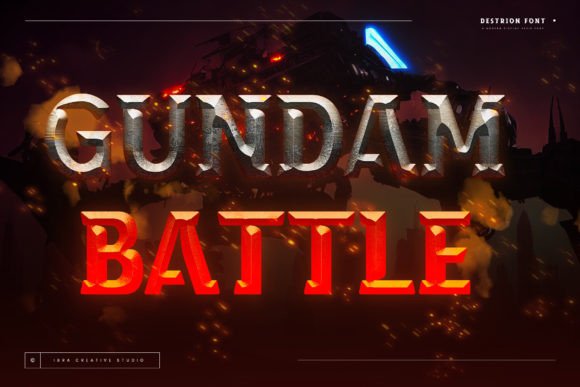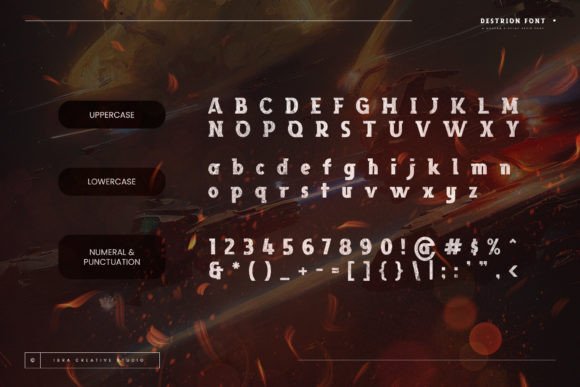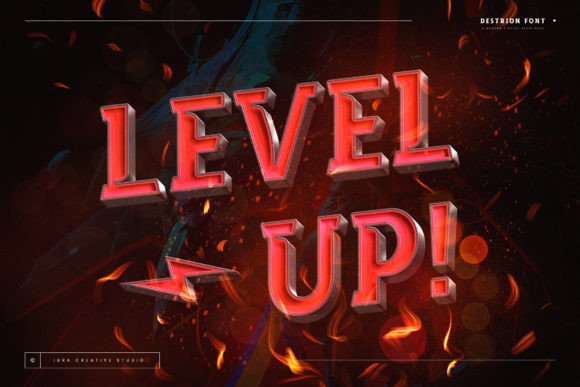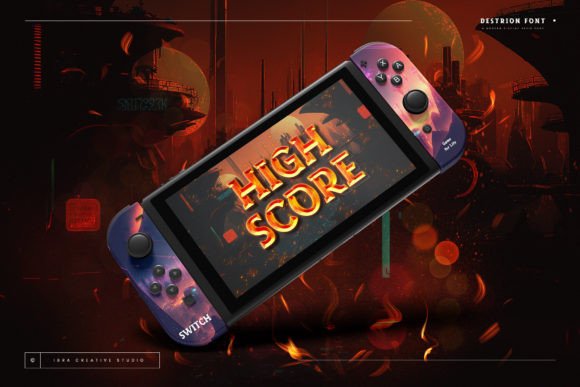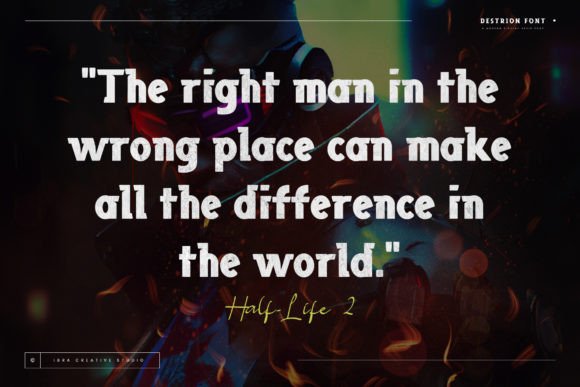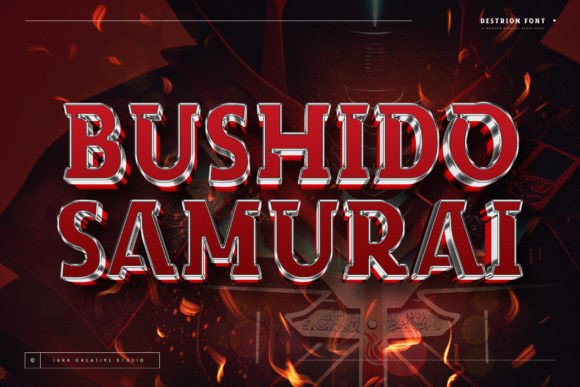
Destrion Font: A Masterful Blend of Classic Elegance and Modern Sophistication
In the realm of typography, few fonts manage to strike a balance between timeless elegance and modern flair as effectively as Destrion. This contemporary display serif typeface has been turning heads with its unique blend of classic sophistication and cutting-edge design. Destrion is not just a font; it’s an experience, offering designers and crafters a versatile tool that can elevate any project from mundane to magnificent.
The Essence of Destrion
At its core, Destrion is about balance. It combines the refined, classic elements of traditional serif typefaces with the sleek, innovative aspects of modern design. This balance makes Destrion a standout choice for a wide range of applications, from high-end branding and advertising to digital media and print publications. Each letterform in the Destrion font is meticulously crafted to exude a sense of sophistication and elegance, making it an excellent choice for designers aiming to add a touch of luxury to their work.
Destrion’s design is characterized by its distinctive serifs, which add a touch of timeless charm to any project. These serifs, while reminiscent of classic typefaces, are executed with a modern precision that keeps the font feeling fresh and contemporary. The sleek lines and refined details of Destrion’s letterforms contribute to its versatility, allowing it to be used in both digital and print media with equal effectiveness.
One of the key features that set Destrion apart is its ability to convey a sense of tradition while still feeling innovative and forward-thinking. This makes it an excellent choice for brands and designers looking to communicate a sense of heritage or classic values with a modern twist. Whether used for a luxury brand’s logo, a fashion magazine’s headline, or a high-end product’s packaging, Destrion brings a level of sophistication and elegance that is hard to match.
Applications of Destrion
The versatility of Destrion makes it suitable for a wide range of design applications. Here are a few areas where Destrion can truly shine:
- Branding and Logo Design: Destrion’s unique blend of classic and modern elements makes it an excellent choice for brands looking to establish a sophisticated and memorable identity.
- Advertising and Marketing: The font’s distinctive serifs and sleek lines make it perfect for headlines and titles in advertising, adding a touch of elegance and professionalism to any campaign.
- Digital Media: Destrion’s legibility and aesthetic appeal make it well-suited for digital platforms, including websites, mobile apps, and social media graphics.
- Print Media: From luxury magazines and high-end fashion brochures to book titles and packaging, Destrion brings a level of sophistication and refinement that can elevate any print project.
Why Choose Destrion?
Choosing Destrion for a design project offers several advantages. Firstly, its unique aesthetic helps projects stand out in a crowded marketplace. Secondly, its versatility means it can be used across a variety of mediums, from digital to print, without losing impact. Finally, Destrion’s blend of classic elegance and modern sophistication ensures that it will remain relevant and stylish for years to come.
For designers and crafters looking for a font that can add a touch of luxury and sophistication to their work, Destrion is an excellent choice. Its distinctive serifs, sleek lines, and versatile design make it a valuable tool in any designer’s toolkit. With Destrion, designers can create stunning, high-impact projects that capture attention and leave a lasting impression.
| Author | ibracreative |
Destrion font represents a significant advancement in typographic design, offering a perfect blend of classic elegance and modern sophistication. Its versatility, aesthetic appeal, and wide range of applications make it an invaluable resource for designers and crafters aiming to create visually stunning and impactful projects. As the world of design continues to evolve, fonts like Destrion are leading the way, pushing the boundaries of what’s possible with typography and inspiring a new generation of designers to explore the possibilities.